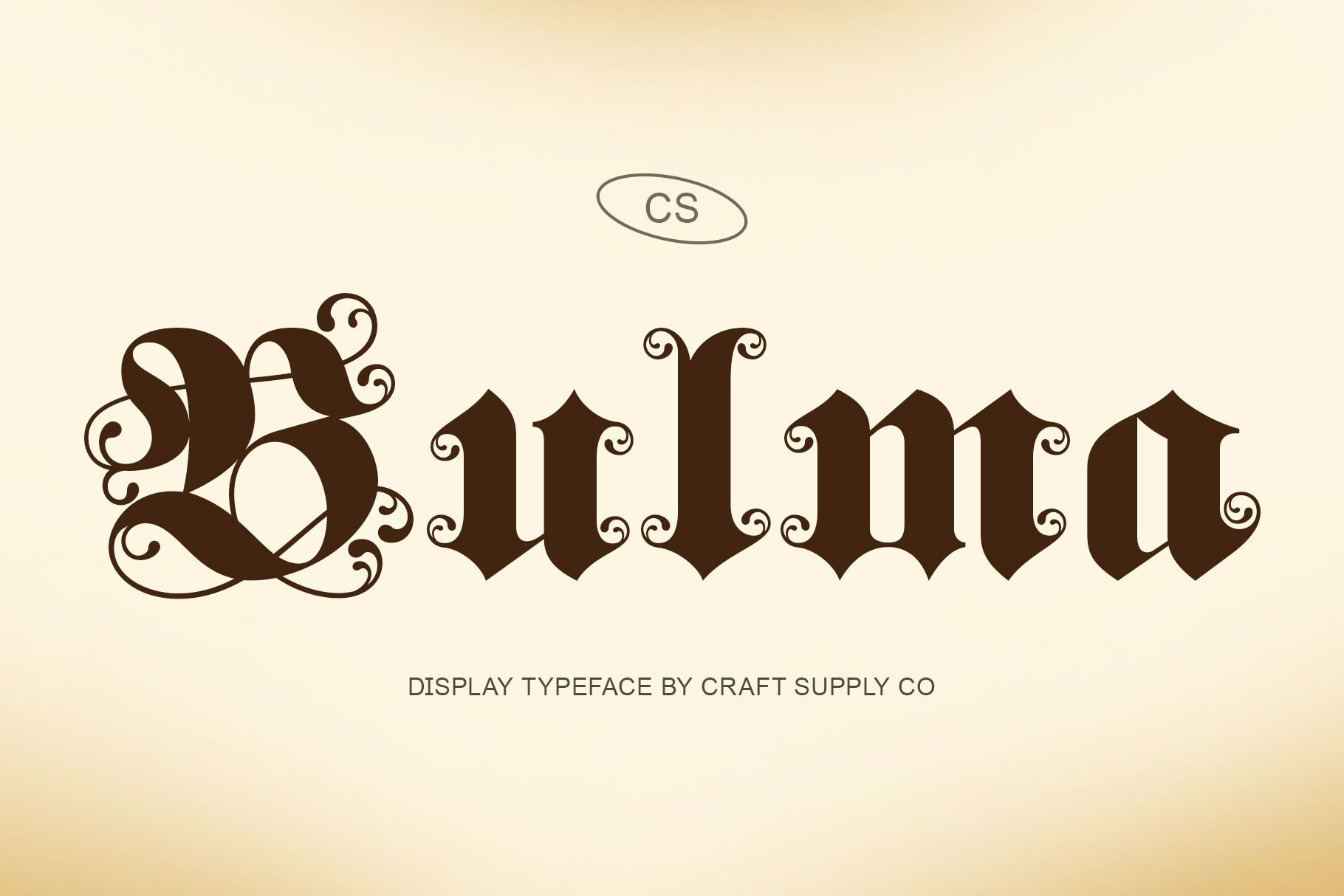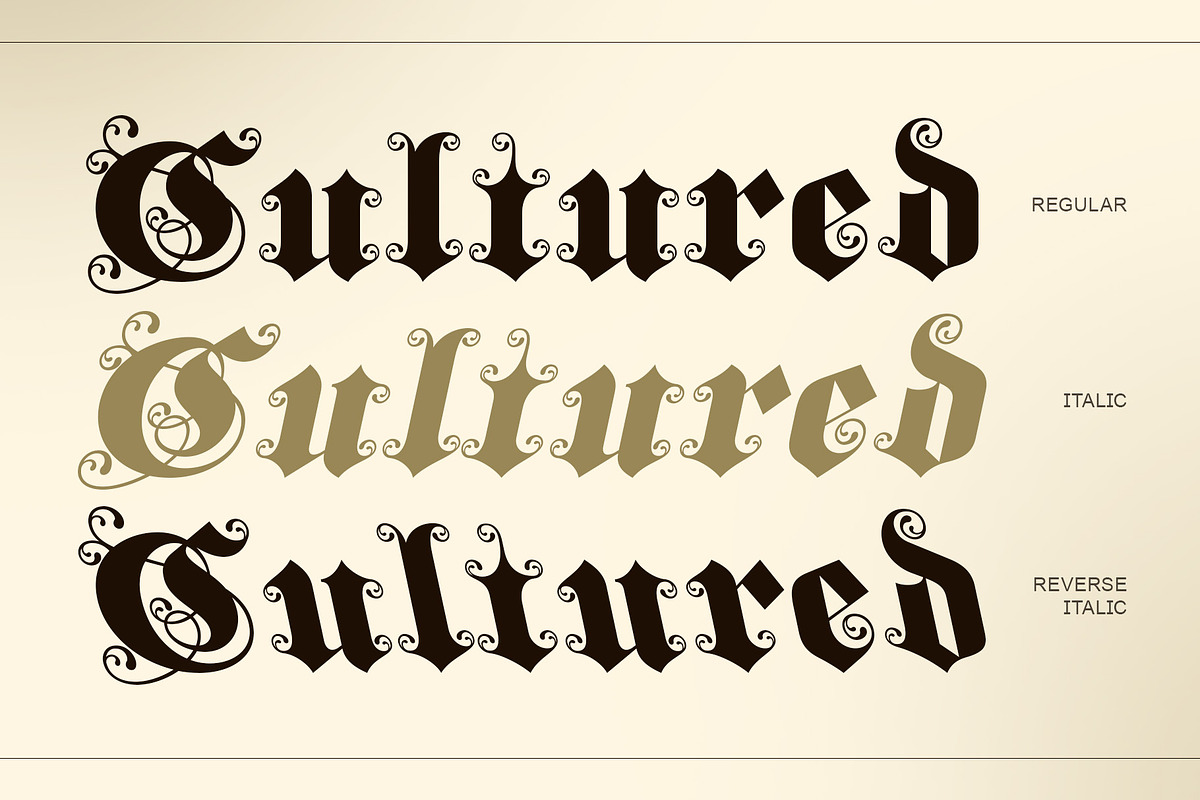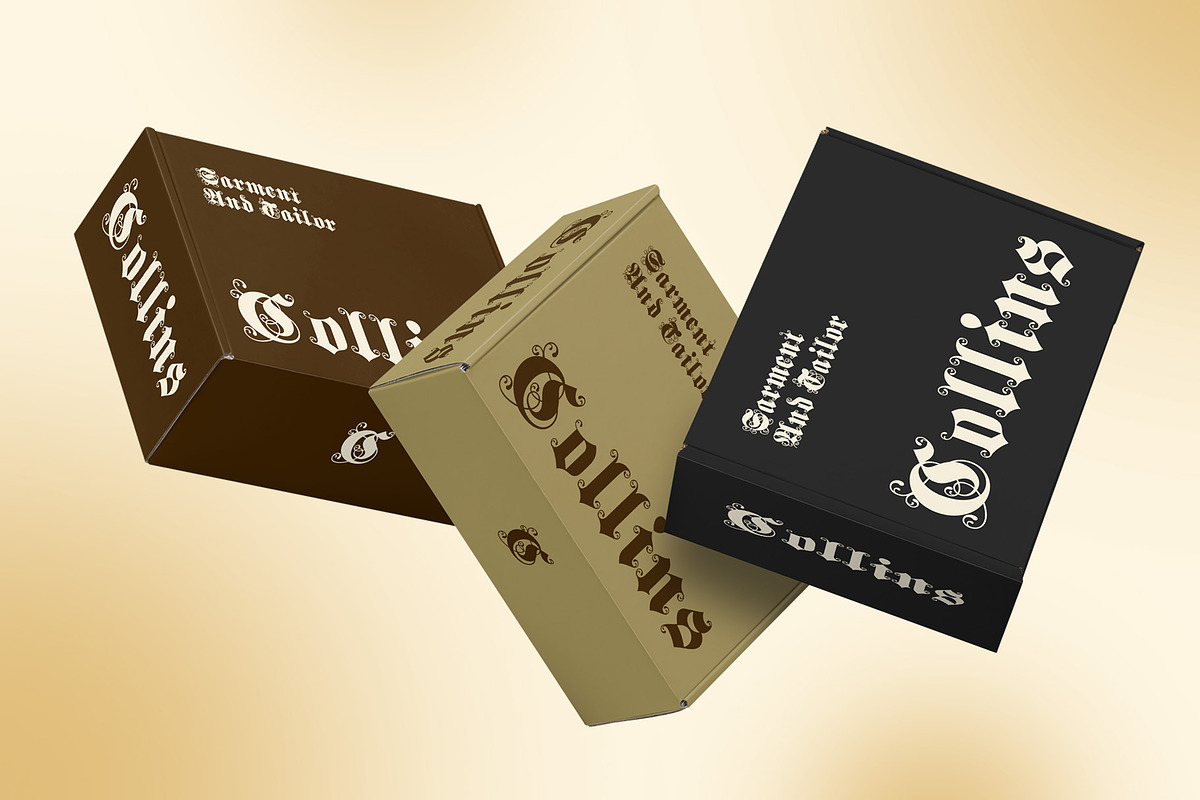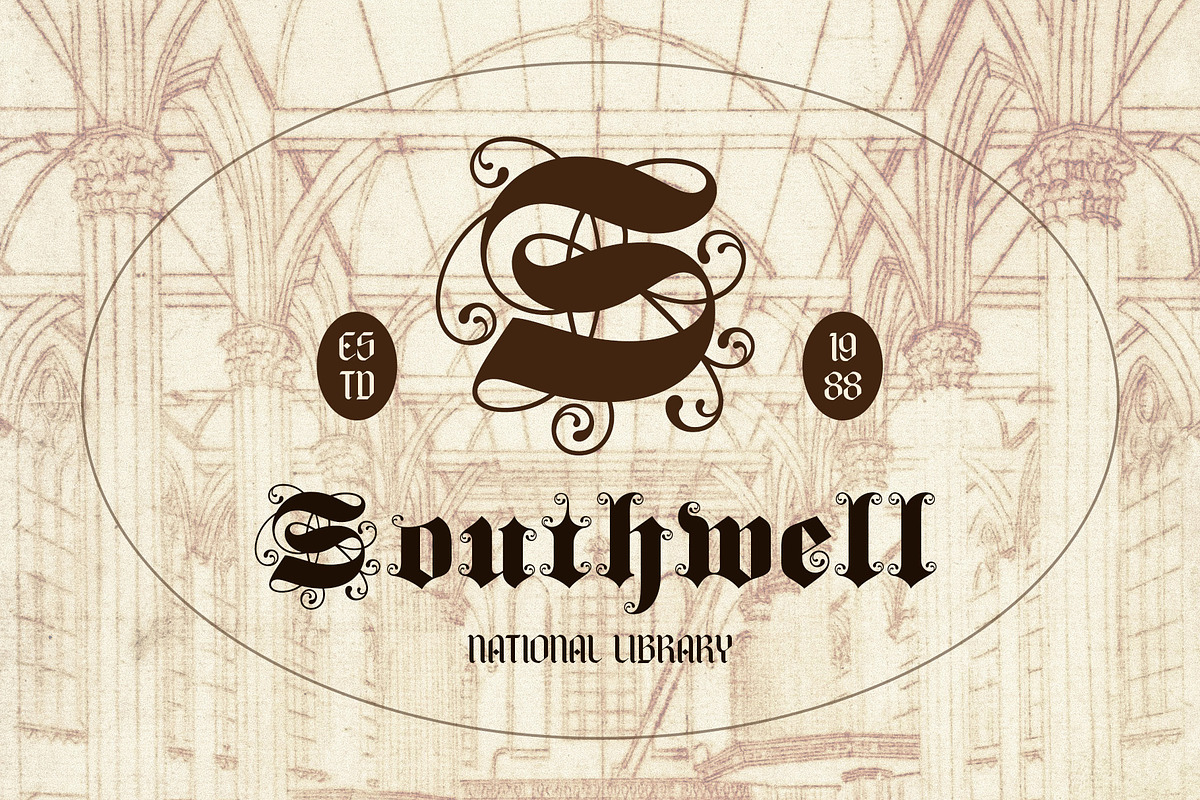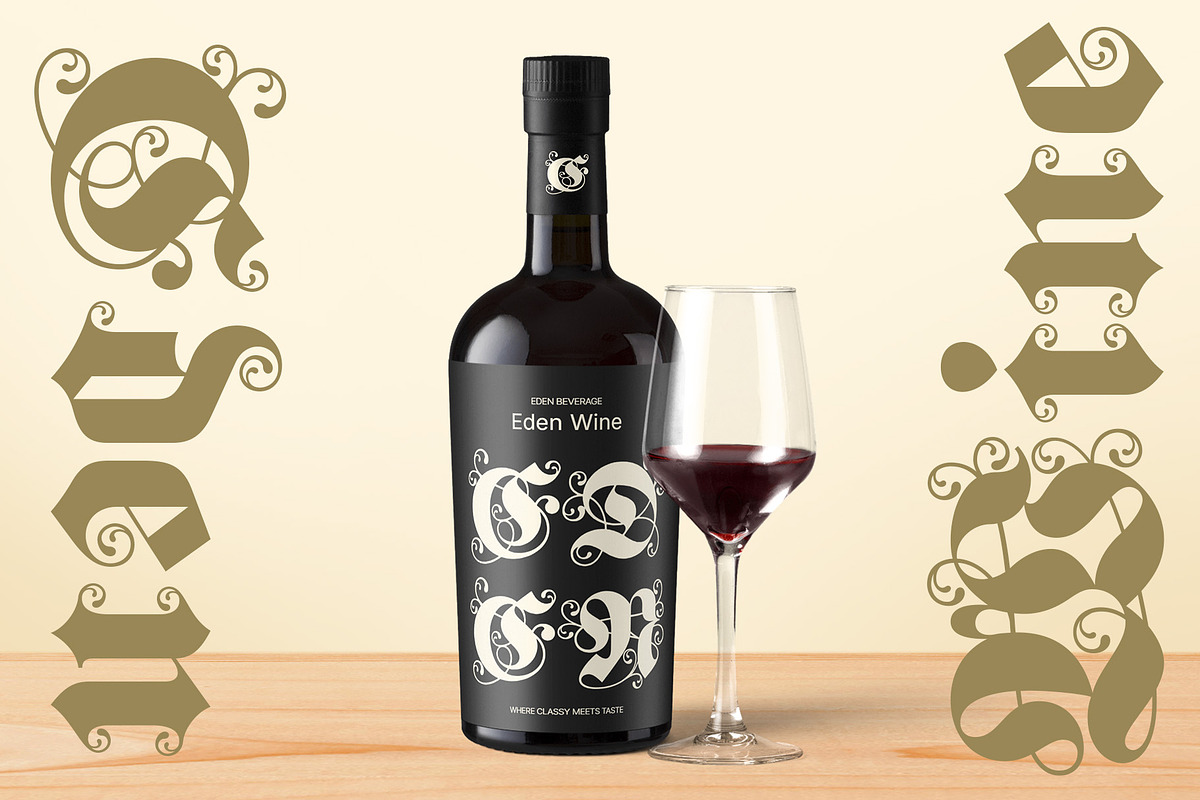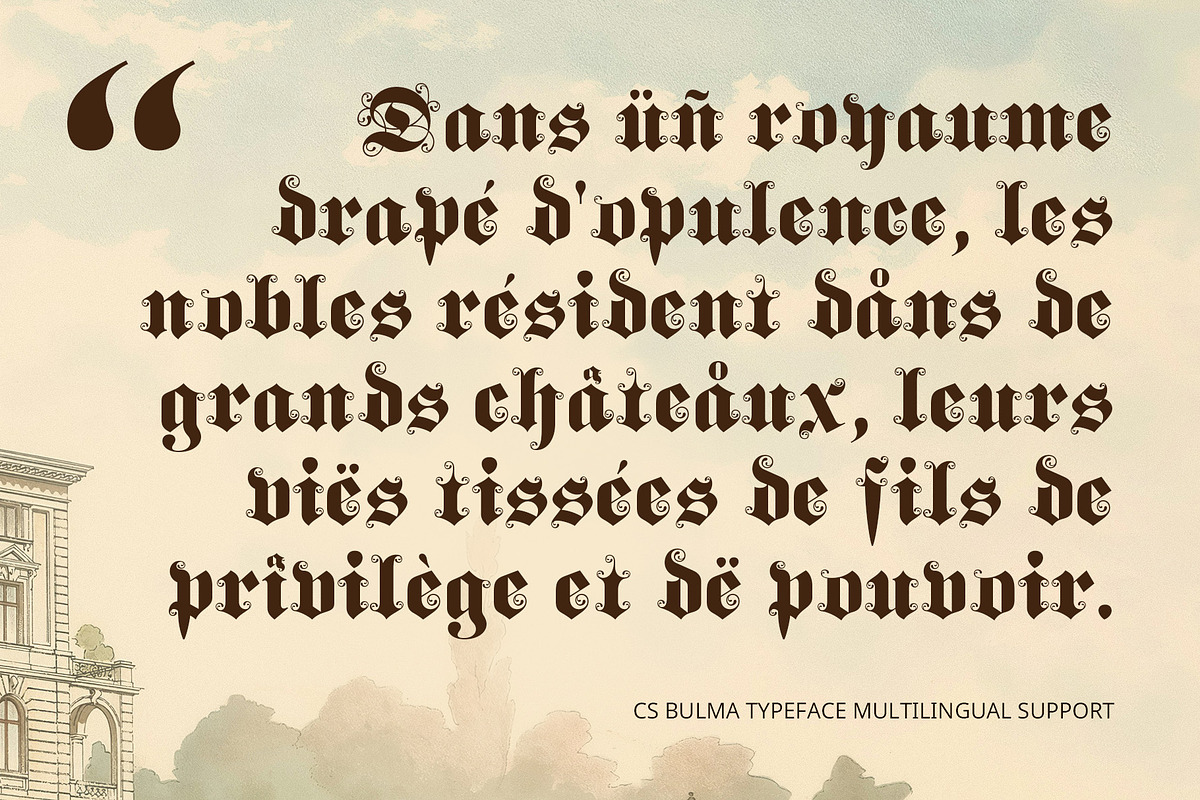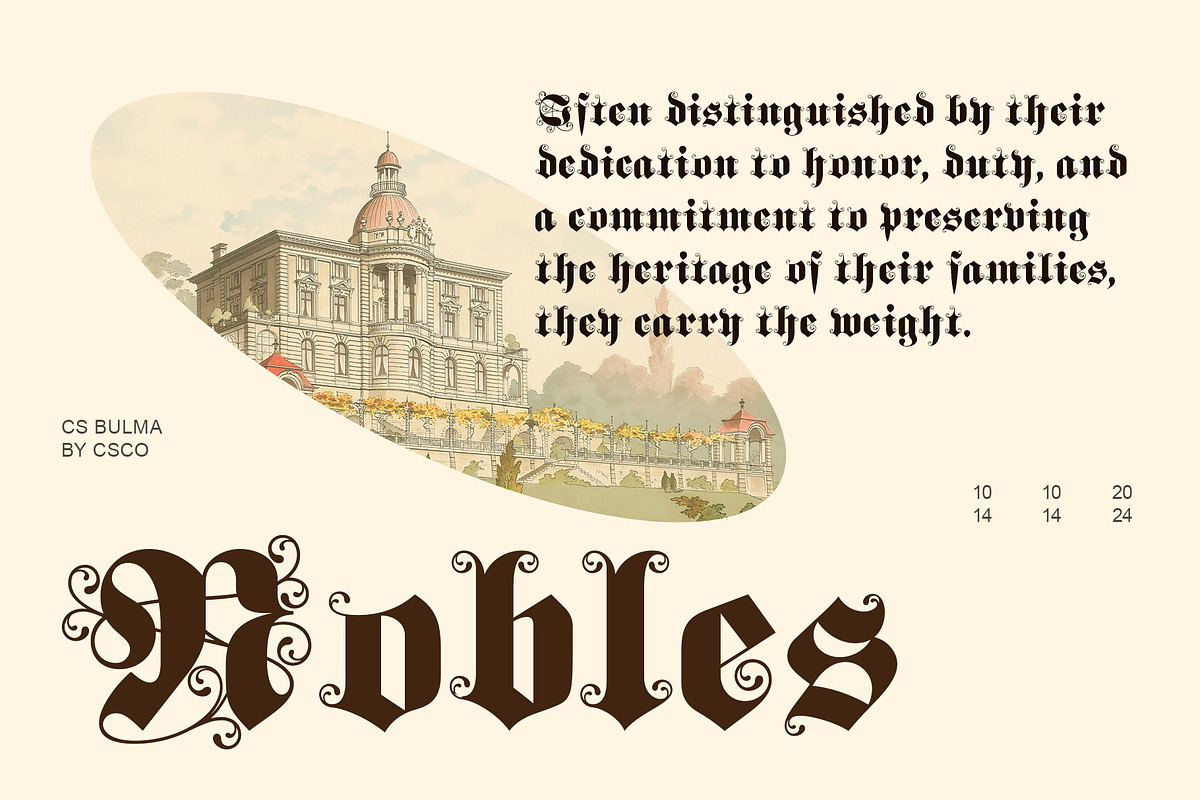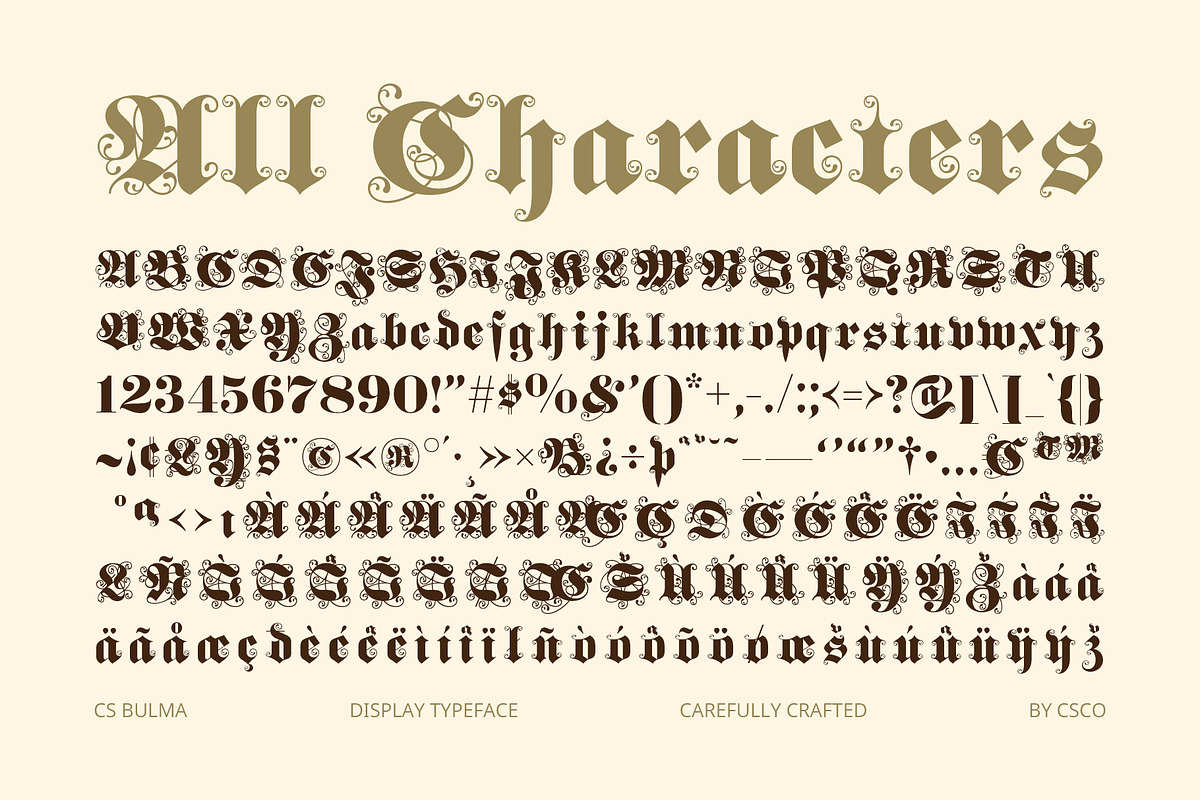
CS Bulma – Blackletter Font
CS Bulma – Blackletter Font: Bold, Medieval-Inspired Gothic Design
Traditional Gothic Elegance with a Bold Edge CS Bulma is a blackletter display font that captures the bold, angular lines and intricate detailing of traditional Gothic lettering. Its medieval-inspired letterforms evoke a sense of history, authority, and drama, making it perfect for designs that seek to convey a strong, timeless aesthetic. With its ornate, sharp forms, CS Bulma adds an undeniable sense of sophistication and intensity to any project.
Medieval-Inspired Letterforms for Impactful Design With its detailed, angular shapes, CS Bulma brings a classic blackletter style to life. The font’s Gothic roots give it a bold, impactful presence, ideal for designs that need to make a statement. Whether used in headlines, branding, or creative artwork, CS Bulma offers an authoritative and dramatic look that’s perfect for projects with a historical or edgy theme.
Perfect for Bold Headlines and Striking Branding CS Bulma excels in designs that require a bold visual impact, making it a great choice for headlines, logos, posters, and branding that demand attention. The intricate, Gothic style lends itself to both traditional and contemporary designs, offering a unique blend of historical depth and modern appeal. It’s a font that stands out while maintaining a sense of heritage and authority.
- CS Bulma Regular
- CS Bulma Italic
- CS Bulma Reverse Italic